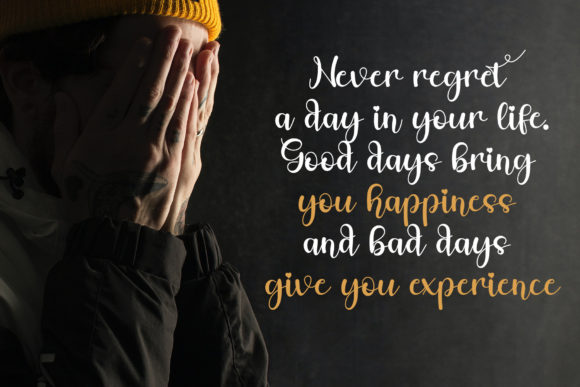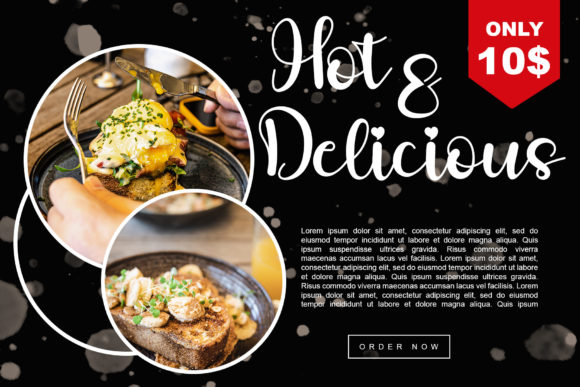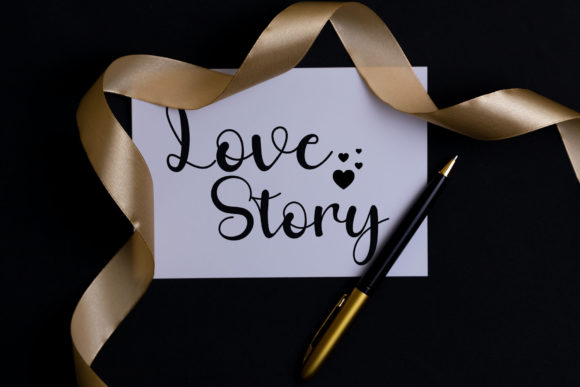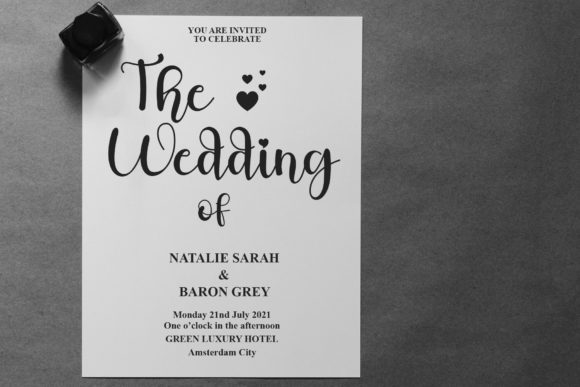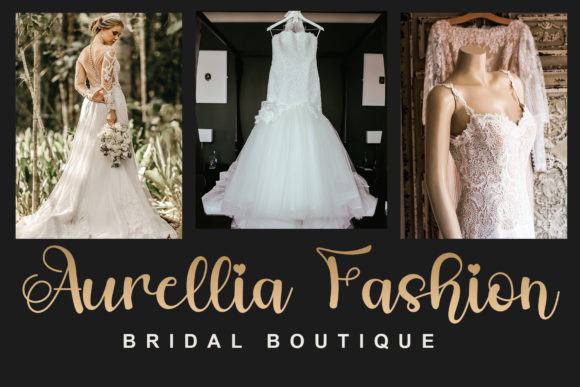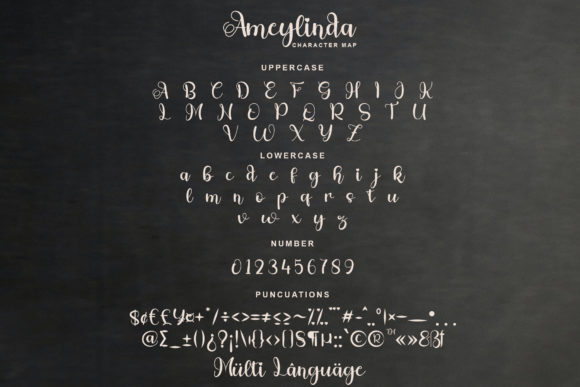
Introducing Ameylinda Font: The Epitome of Luxury and Versatility
Are you on the hunt for a font that exudes elegance, sophistication, and a touch of luxury? Look no further than Ameylinda Font, a stunning handwritten font that is sure to capture your heart. With its smooth, flowing lines and balanced letters, Ameylinda is a masterpiece that will elevate your designs to new heights.
The Characteristics of Ameylinda Font
So, what makes Ameylinda Font so special? For starters, its distinct and balanced letters set it apart from other fonts on the market. Each letter is carefully crafted to ensure that it flows seamlessly into the next, creating a beautiful, cohesive look that is sure to impress. Whether you’re designing a logo, creating a social media graphic, or crafting a stylish invitation, Ameylinda Font is the perfect choice.
The Versatility of Ameylinda Font
One of the things that really sets Ameylinda Font apart is its incredible versatility. This font can be used in a wide range of design applications, from elegant wedding invitations to stylish brand logos. Its smooth, luxurious feel makes it perfect for designs that require a touch of sophistication, while its playful, handwritten style ensures that it remains approachable and engaging.
Why Designers and Crafters Love Ameylinda Font
Designers and crafters are always on the lookout for fonts that can help them create stunning, professional-looking designs. Ameylinda Font delivers on this front in spades. Here are just a few reasons why designers and crafters love this amazing font:
- Elegance and sophistication: Ameylinda Font is the perfect choice for designs that require a touch of luxury and sophistication.
- Versatility: This font can be used in a wide range of design applications, from logos and branding to invitations and social media graphics.
- Easy to read: Despite its elegant, cursive style, Ameylinda Font is incredibly easy to read, making it perfect for designs that require a clear, concise message.
- Unique and distinctive: With its smooth, flowing lines and balanced letters, Ameylinda Font is a true standout in the world of typography.
How to Use Ameylinda Font in Your Designs
Ready to fall in love with Ameylinda Font and start using it in your designs? Here are a few tips to get you started:
- Pair it with bold colors: Ameylinda Font looks stunning when paired with bold, vibrant colors. Try using it with a bright red or electric blue to really make your design pop.
- Experiment with different sizes: Ameylinda Font looks great in a wide range of sizes, from large headings to smaller body text. Experiment with different sizes to find the perfect fit for your design.
- Use it for branding and logos: With its elegant, sophisticated style, Ameylinda Font is perfect for branding and logos. Use it to create a lasting impression and set your brand apart from the competition.
In conclusion, Ameylinda Font is a smooth and luxurious handwritten font that is sure to capture your heart. With its distinct and balanced letters, incredibly versatile style, and ease of use, it’s the perfect choice for designers and crafters who want to create stunning, professional-looking designs. Whether you’re designing a logo, creating a social media graphic, or crafting a stylish invitation, Ameylinda Font is the perfect choice. So why wait? Fall in love with Ameylinda Font today and start creating spectacular designs that will leave a lasting impression!